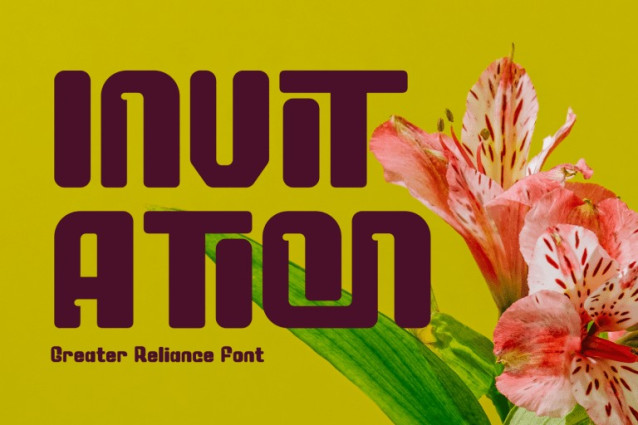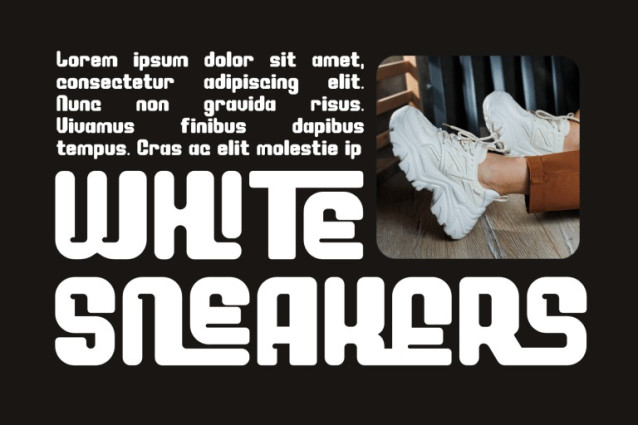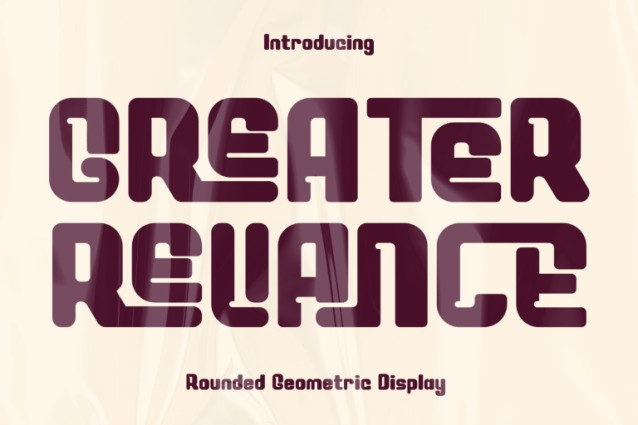
GREATER RELIANCE FONT – Retro Modular Rounded Display Font, a bold retro modular display font designed with smooth rounded corners, geometric construction, and a distinctive blocky rhythm. Its characters are crafted from sturdy, monolithic shapes combined with soft curves, creating an eye-catching balance between vintage charm and modern aesthetics. The unique cut-ins, rounded terminals, and modular structure give every word a striking visual identity, making it perfect for standout headlines, retro posters, creative branding, album covers, tech-inspired graphics, and bold typographic compositions. With its strong presence and nostalgic futuristic appeal, GREATER RELIANCE brings personality and impact to any design project.
🔤Features:
Uppercase & Lowercase Letters
Around 100 Special Ligatures & Alternates
Accented Characters for multilingual support
🔤About 100 ligatures combined with Stylistic Alternates Font:
AC AD AL AN AR AS AT AU AV BE CA CE CH CO CT DE DI EA EC ED EE EL EM EN EP ER ES ET FE FO FR GE HA HE HI HO IE IC IL IN IO IR IS IT JU KE LA LE LI LL LO LY MA ME MI NC ND NE NG NO NT NS OC OF OM ON OO OP OR OT OU OW PA PR RA RD RE RI RO RS RT SE SH SI SO SS ST TA TE TH TI TO TR TT UM UN UR VE WI WO